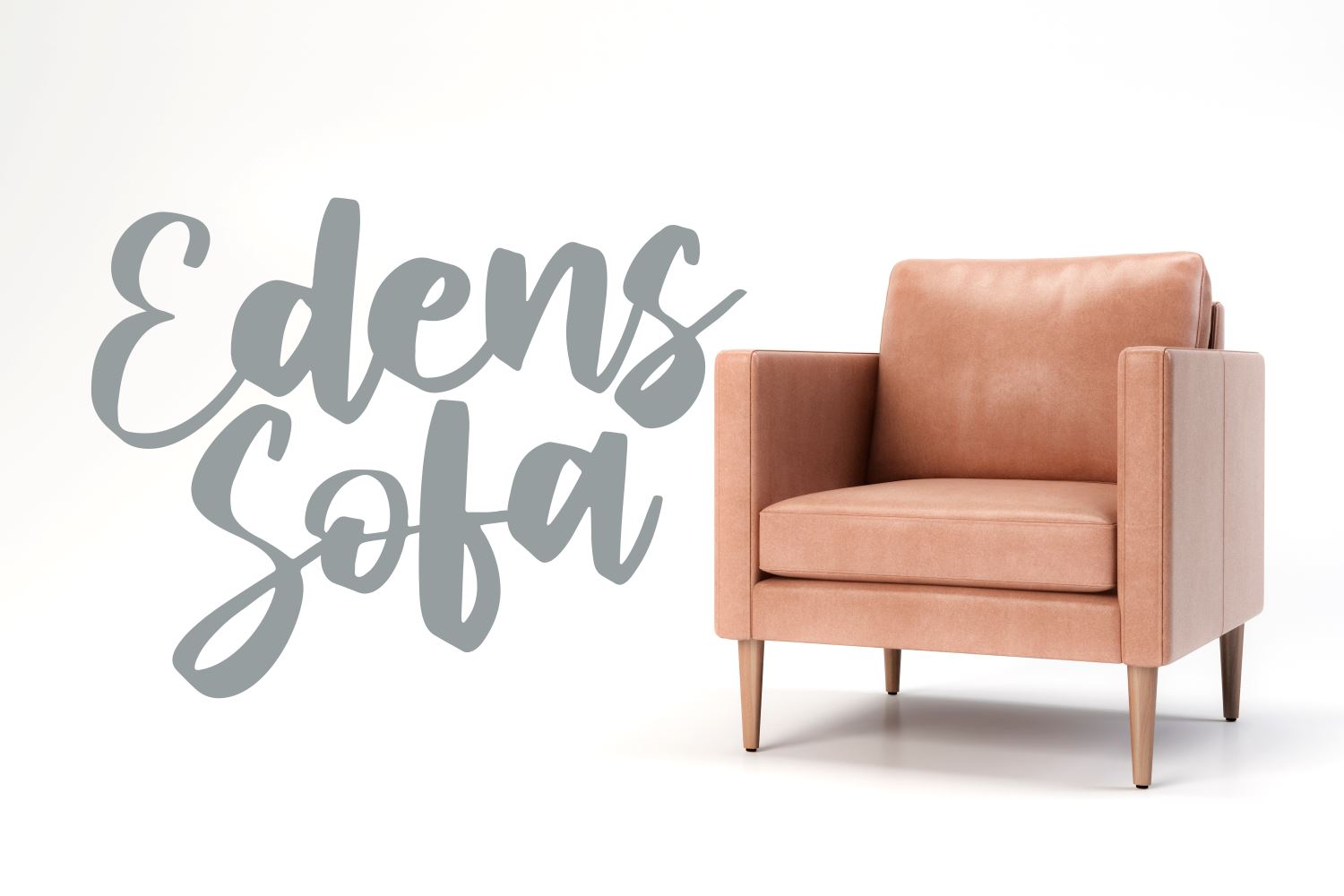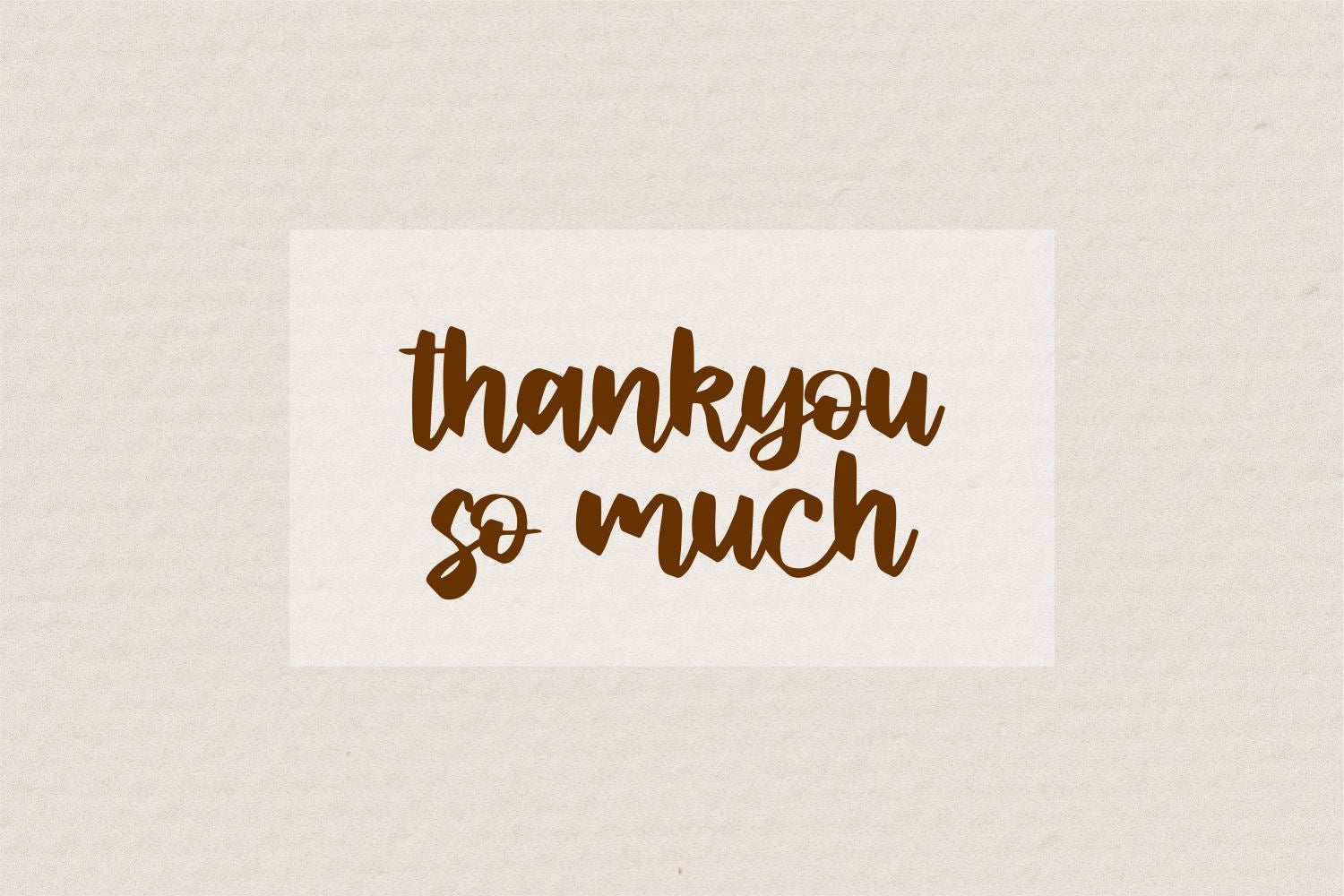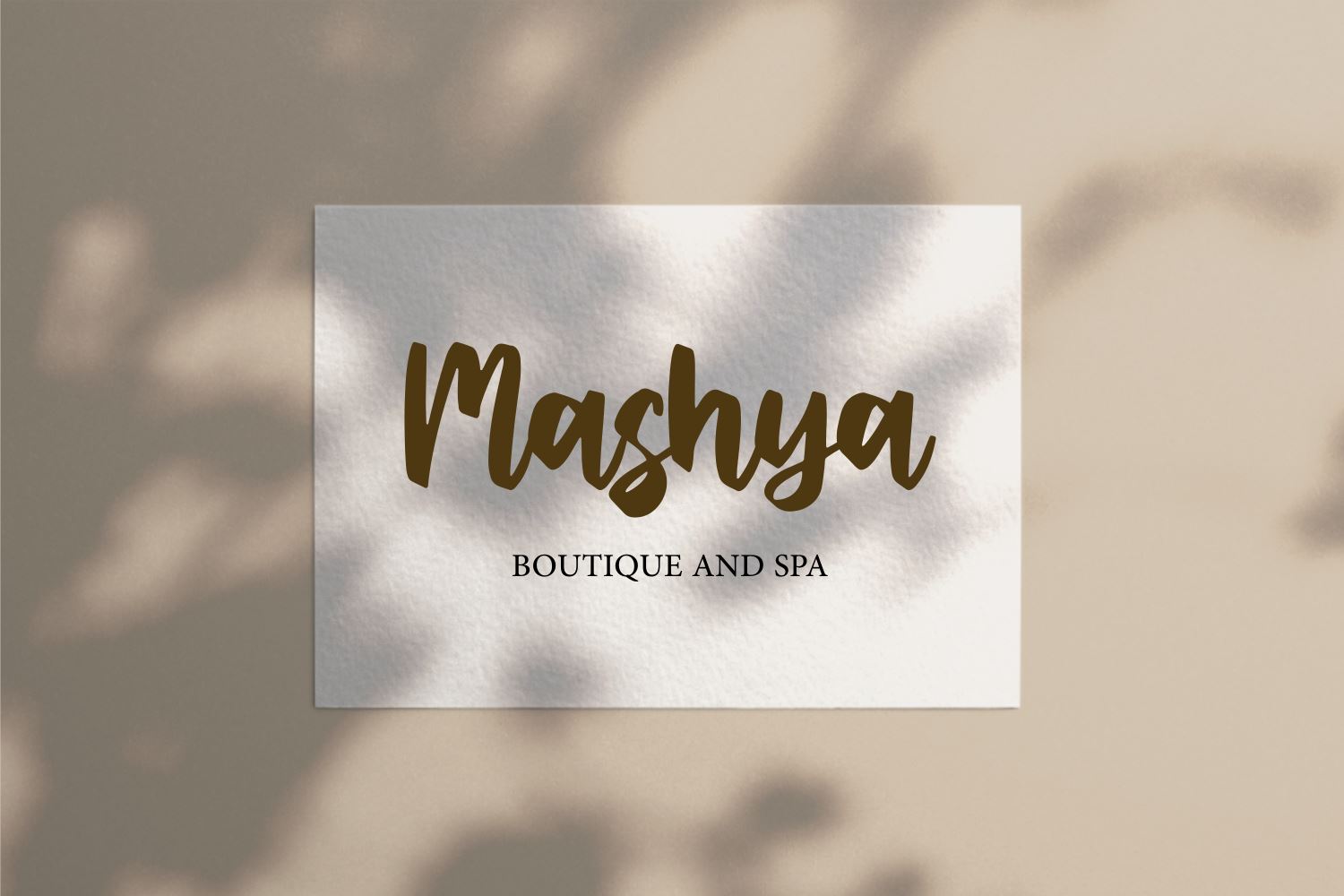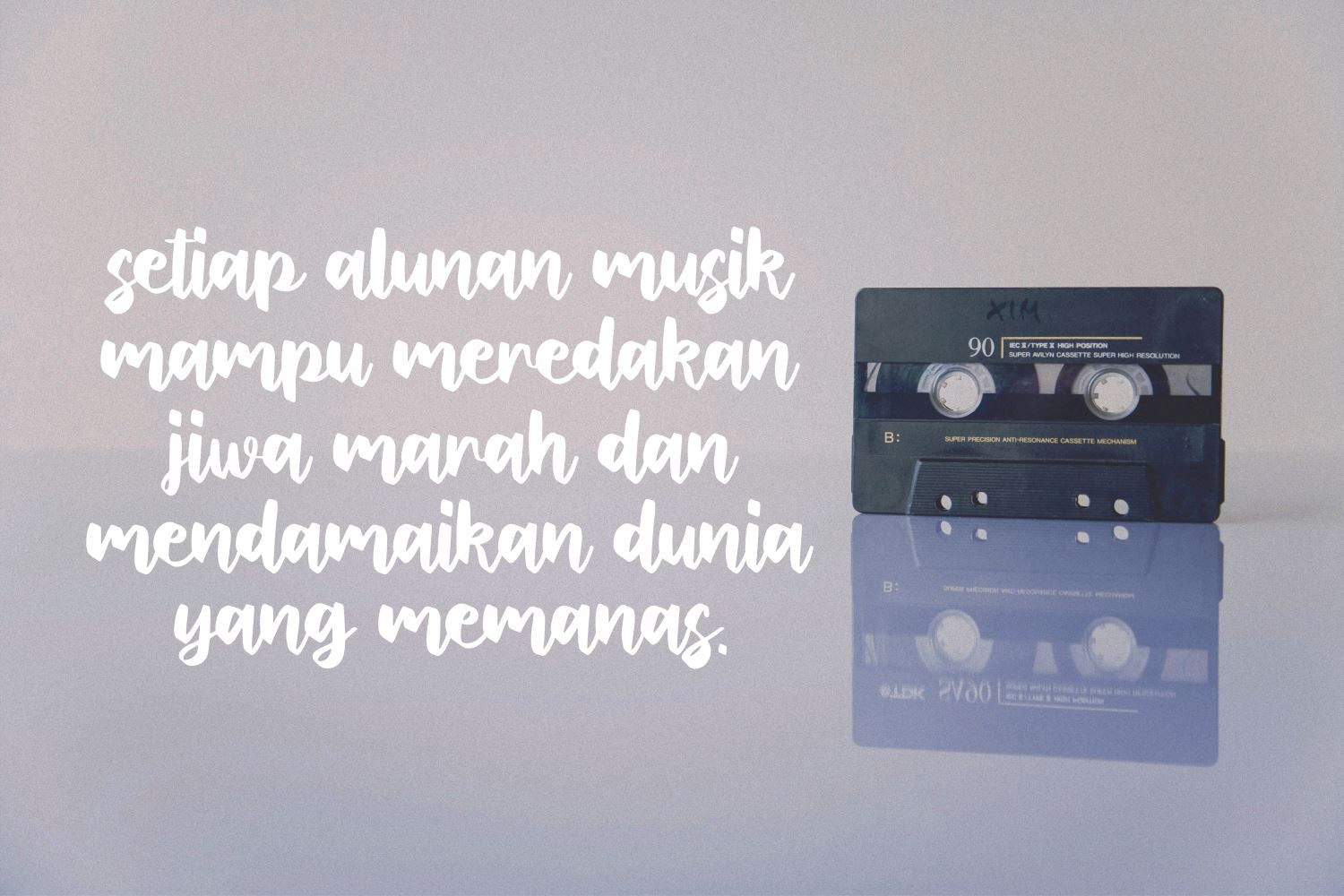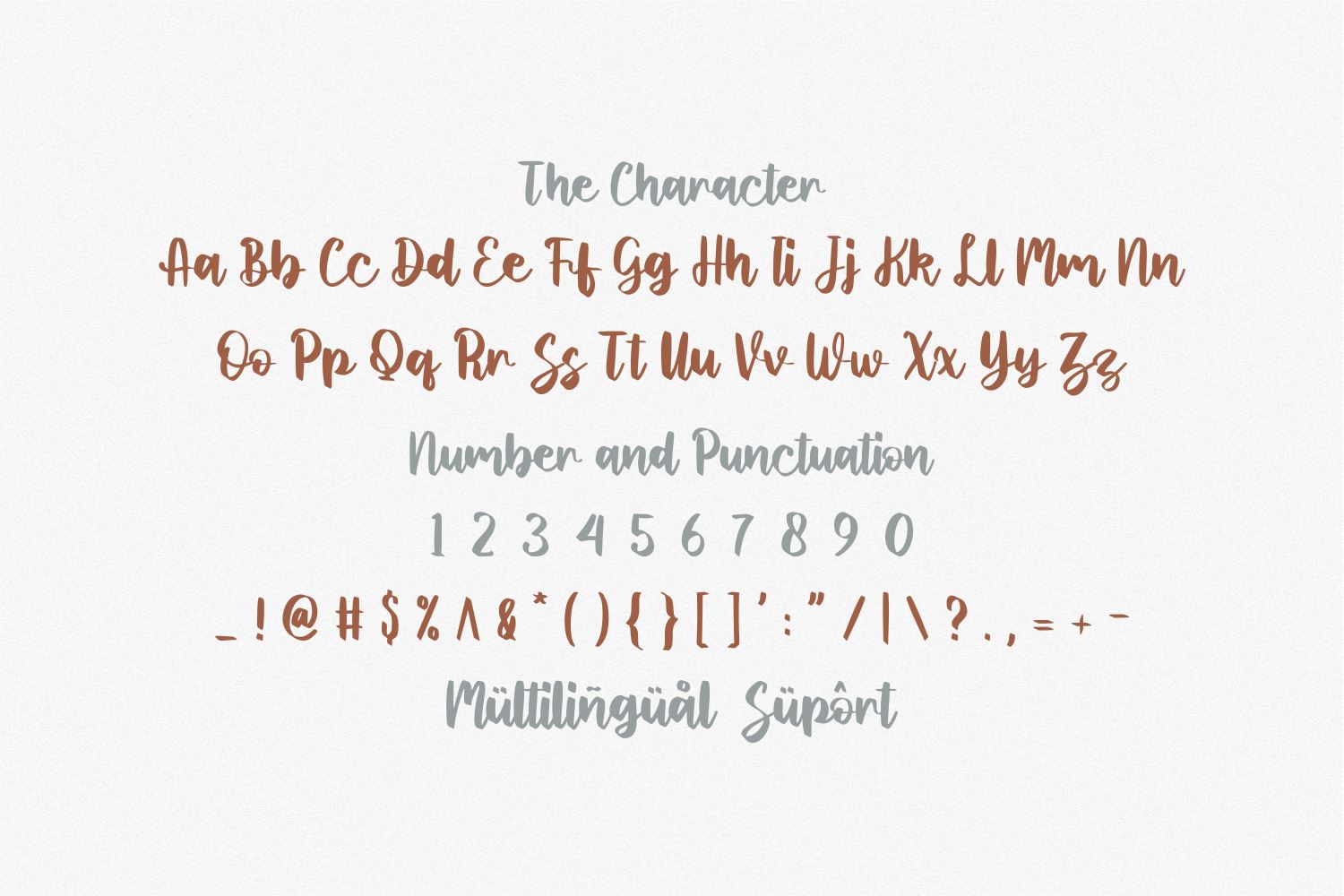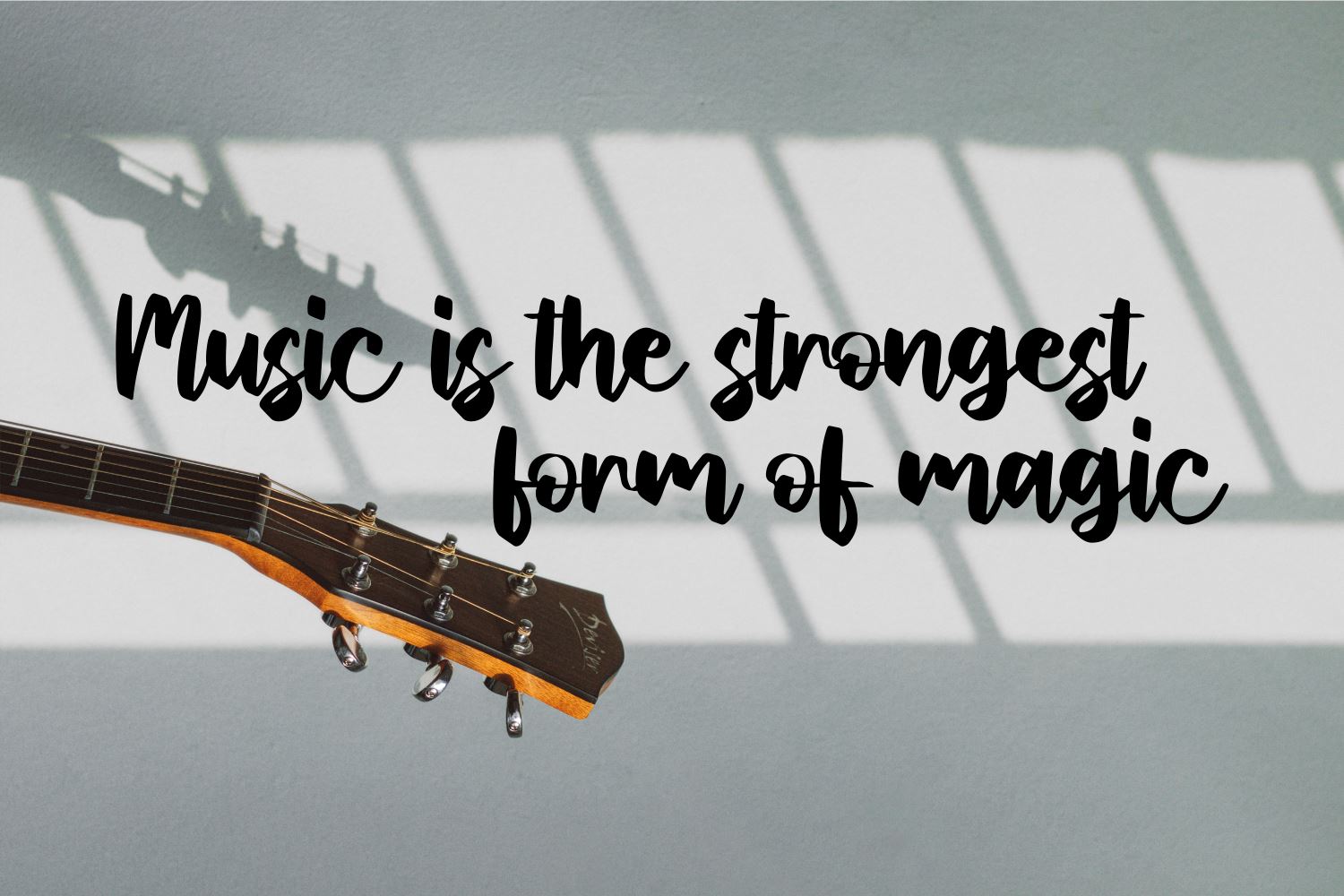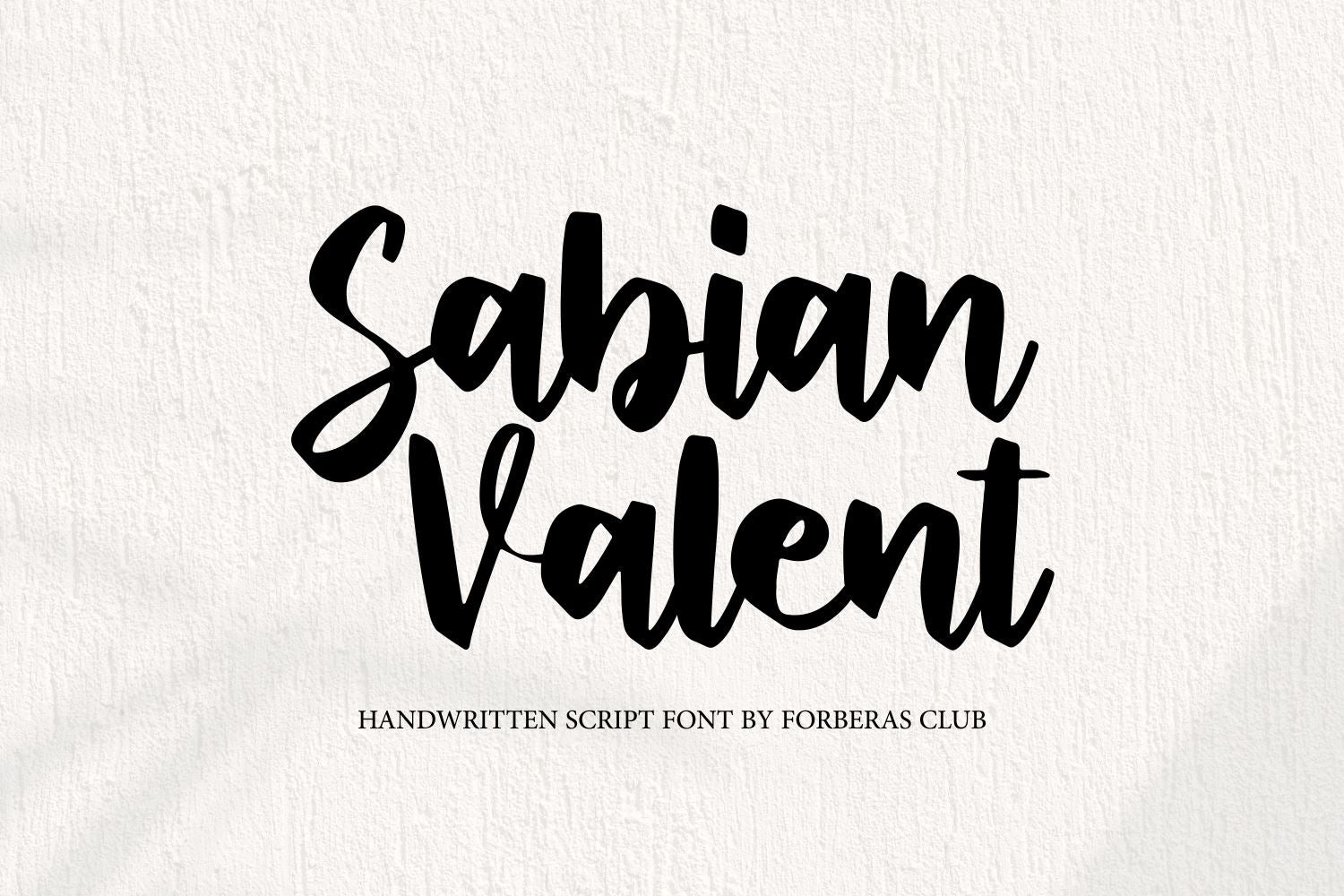
Sabian Valent
About Sabian Valent
Introducing Sabian Valent Font by Forberas Club Sabian Valent is a Modern Handwritten Font. Sabian Valent is perfect for book cover, product packaging, branding project, megazine, social media, kisd book fonts, or just used to express words above the background. This font includes TTF and OTF, This font also multilingual support.